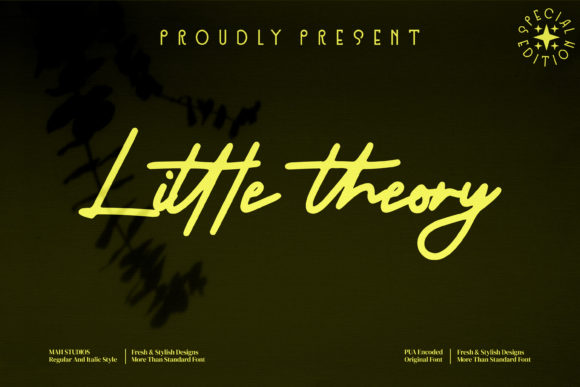
Behold, Little Theory, a captivating script font that's destined to elevate the visual aesthetics of your creative endeavors. Its enchanting allure adds a touch of grace and elegance to logos, branding initiatives, homeware designs, and product packaging, turning ordinary items into works of art.
Immerse yourself in a world of boundless creativity, where your imagination knows no limits. With Little Theory, every project takes on a life of its own. Whether you're designing mugs with inspiring quotes, crafting posters that speak to the soul, or creating shopping bags that exude style, this versatile font will leave an unforgettable impression.
Envision the beauty of your words adorning t-shirts, their messages amplified by the elegant curves and flourishes of Little Theory. Transform book covers into portals to magical realms, where stories come alive and captivate readers from the very first page.
With Little Theory, your name cards and invitation cards become more than mere pieces of paper; they're exquisite tokens of appreciation and expressions of your impeccable taste. Create greeting cards that spread joy and warmth, their heartfelt sentiments enhanced by the delicate strokes of this exquisite font.
Unleash your creativity in the realm of photography, where Little Theory adds a touch of sophistication and allure to your images. Design watermarks that subtly enhance your visual masterpieces, ensuring they stand out from the ordinary. From special events to personal projects, Little Theory elevates every aspect of your creative journey.
Indulge in the luxury of Little Theory, where your projects exude an air of exclusivity and refinement. Experience the transformative power of this premium signature font, and let your imagination soar to new heights. Embrace Little Theory today, and embark on an extraordinary creative adventure.